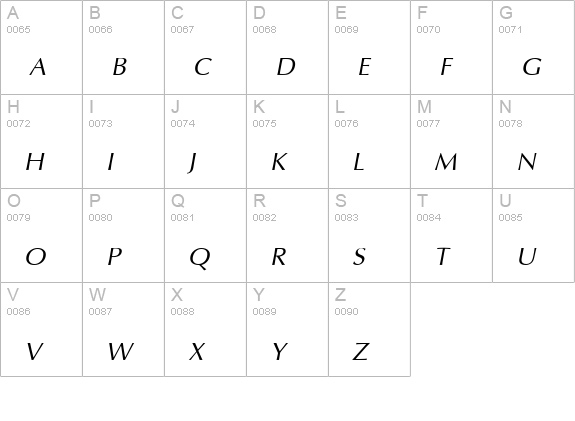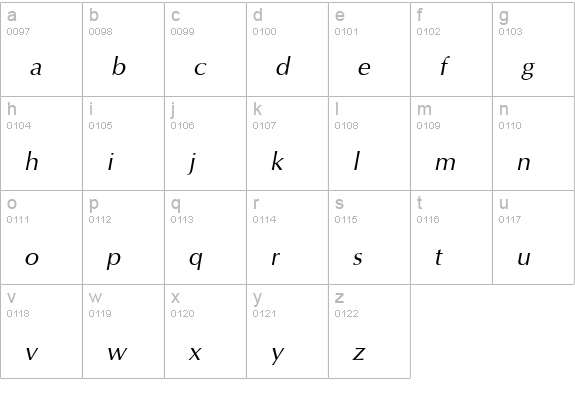
IrisUPC Italic Font Details
IrisUPC Italic is a distinctive, italic variant in the IrisUPC typeface family \xE2\x80\x94 well suited to design and typography projects.
Introducing IrisUPC Italic, a captivating and elegant font that effortlessly combines modernity with a classic touch. This extraordinary typeface is the perfect choice for those seeking to add a touch of sophistication and grace to their designs. IrisUPC Italic boasts a unique and captivating italicized style, adding a dynamic flair to any project. Its fluid and slanted letterforms create a sense of movement and energy, making it ideal for conveying excitement and elegance in various design applications. With its carefully crafted curves and beautiful letter spacing, IrisUPC Italic exudes an air of refinement and professionalism. Whether used in branding, editorial design, or advertising, this font adds a touch of class and exclusivity to any project. What makes IrisUPC Italic even more appealing is that it is freely available to download at FontsMarket.com. This means that you can elevate your designs without breaking the bank. So, whether you are a professional designer or a passionate hobbyist, IrisUPC Italic is at your fingertips, ready to unleash your creativity. Don't miss the opportunity to enhance your projects with a touch of elegance and style. Download IrisUPC Italic from FontsMarket.com today and let this exceptional font elevate your designs to new heights.